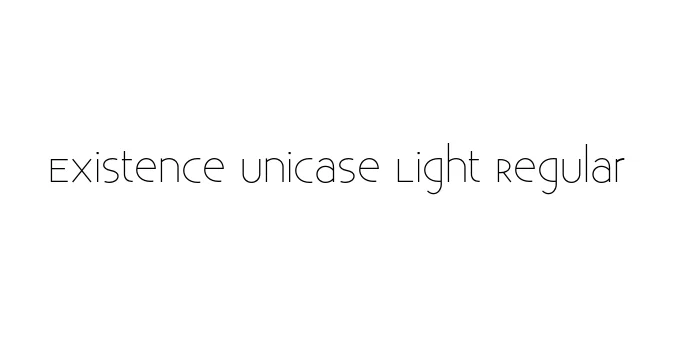
Existence Unicase Light Regular
Designed by Noah (Yeah Noah)
| Font Name | Existence Unicase Light |
| Designer | Noah (Yeah Noah) |
Existence Unicase Light Regular is a minimalist, geometric sans-serif typeface designed by Noah. It is characterized by its clean, monolinear strokes and a unique unicase structure where uppercase and lowercase letters share the same height and form factor. This design choice provides a modern, sleek aesthetic that is highly legible and visually consistent across both digital and print mediums.
Part of the broader Existence family, this specific font variation is renowned for its architectural precision and open apertures. It is often the preferred choice for designers aiming for a professional yet accessible appearance. Because of its balanced proportions, it performs exceptionally well in minimalist environments, making it a staple for high-end branding and contemporary editorial layouts.
Existence Unicase Light Regular Best Uses
Perfect for modern and minimalist corporate identities requiring a clean look.
Excellent for high-impact, professional website headings and UI elements.
Highly readable for wayfinding and architectural interior signage.
Works well for minimalist magazine spreads, posters, and professional brochures.